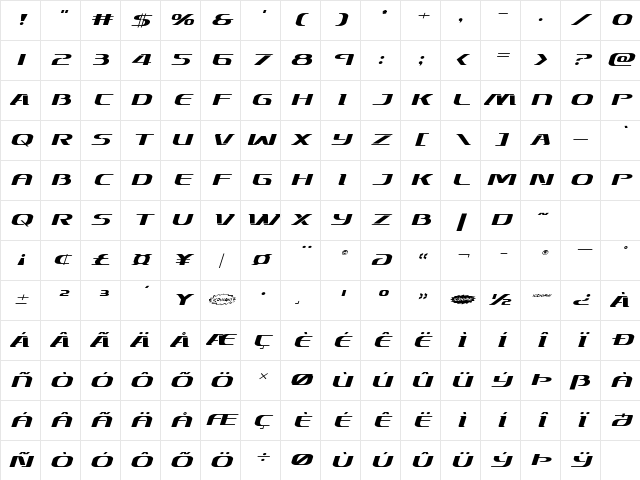
Complete Sky Marshal Expanded Italic glyph index. Displaying only characters natively supported by Sky Marshal Expanded Italic font.
Sky Marshal Expanded Italic is a composed and adaptable typeface that performs quietly and consistently across a wide range of design contexts. The slanted form adds forward momentum and visual energy.